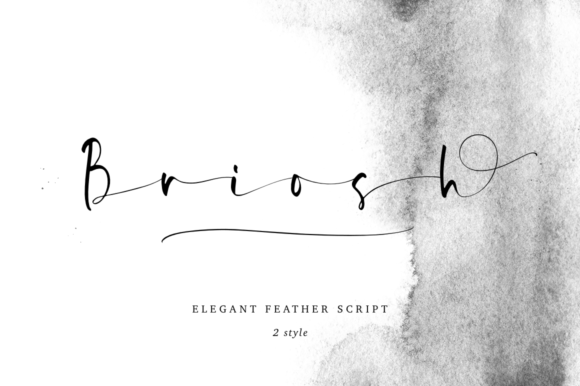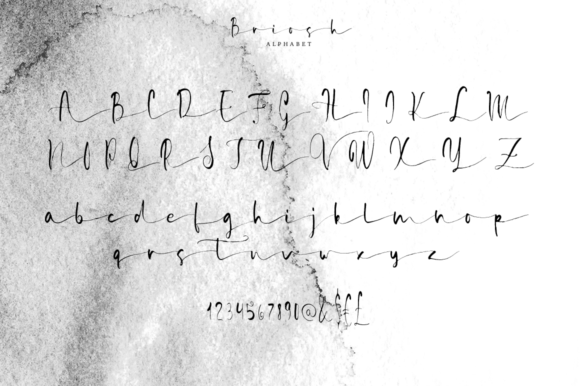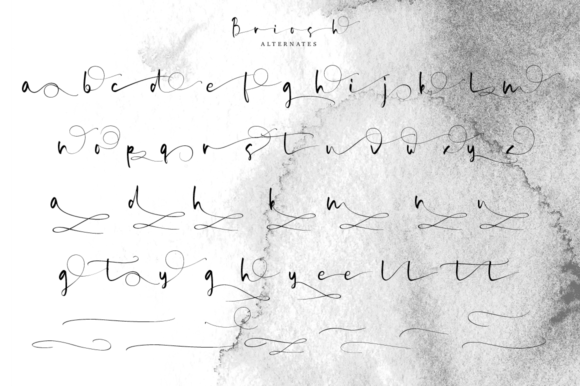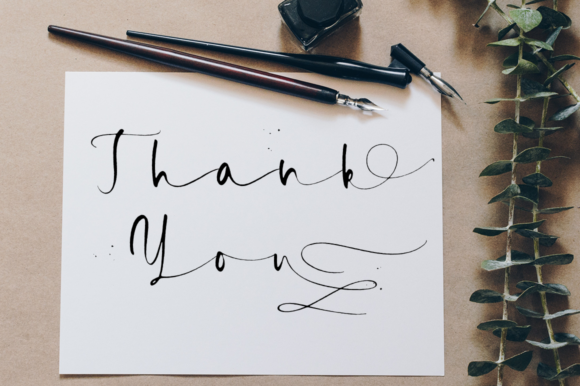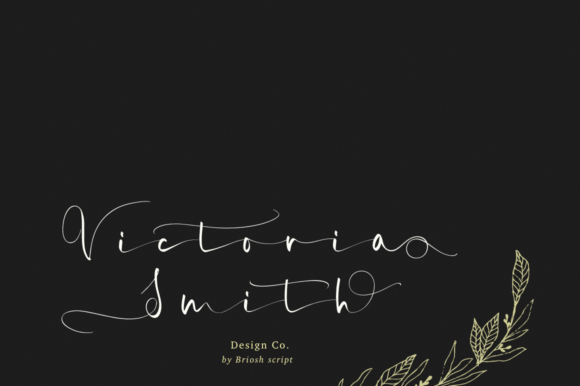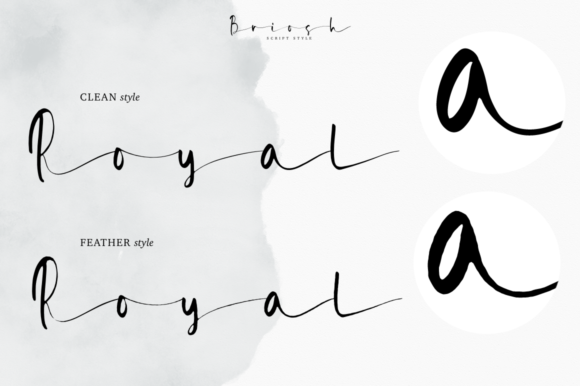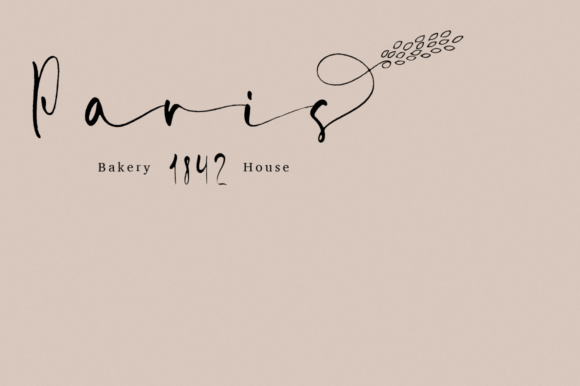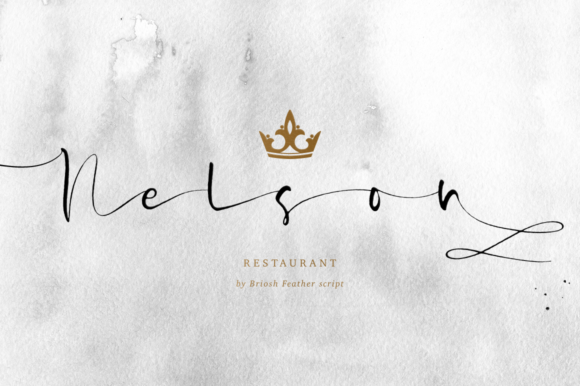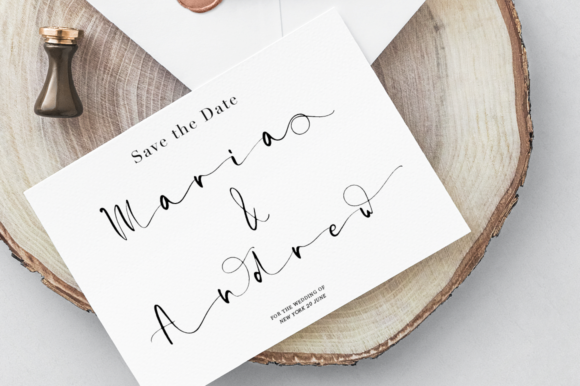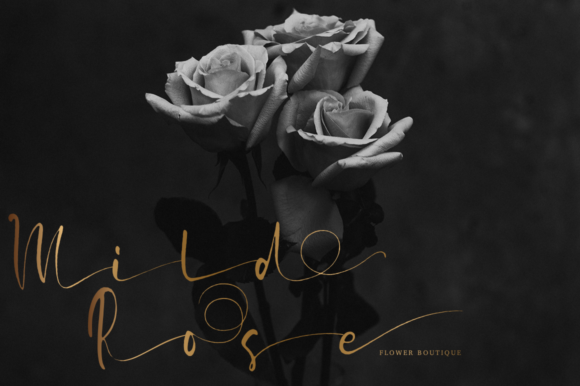
Briosh Font
About Briosh Font
Briosh is a delicate and romantic calligraphy font with an elegant feel. Get inspired by its authenticity and use it for any design idea that needs a unique character.